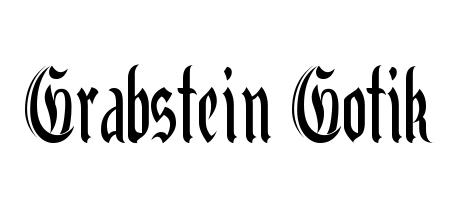
Grabstein Gotik
Grabstein Gotik, a font name evoking images of medieval Germany, is a blackletter typeface. Its sharp, angular serifs and dramatic ascenders and descenders create a gothic feel, reminiscent of inscriptions on ancient tombstones. The letters are tightly packed, lending a sense of formality and age. The overall style is bold and imposing.